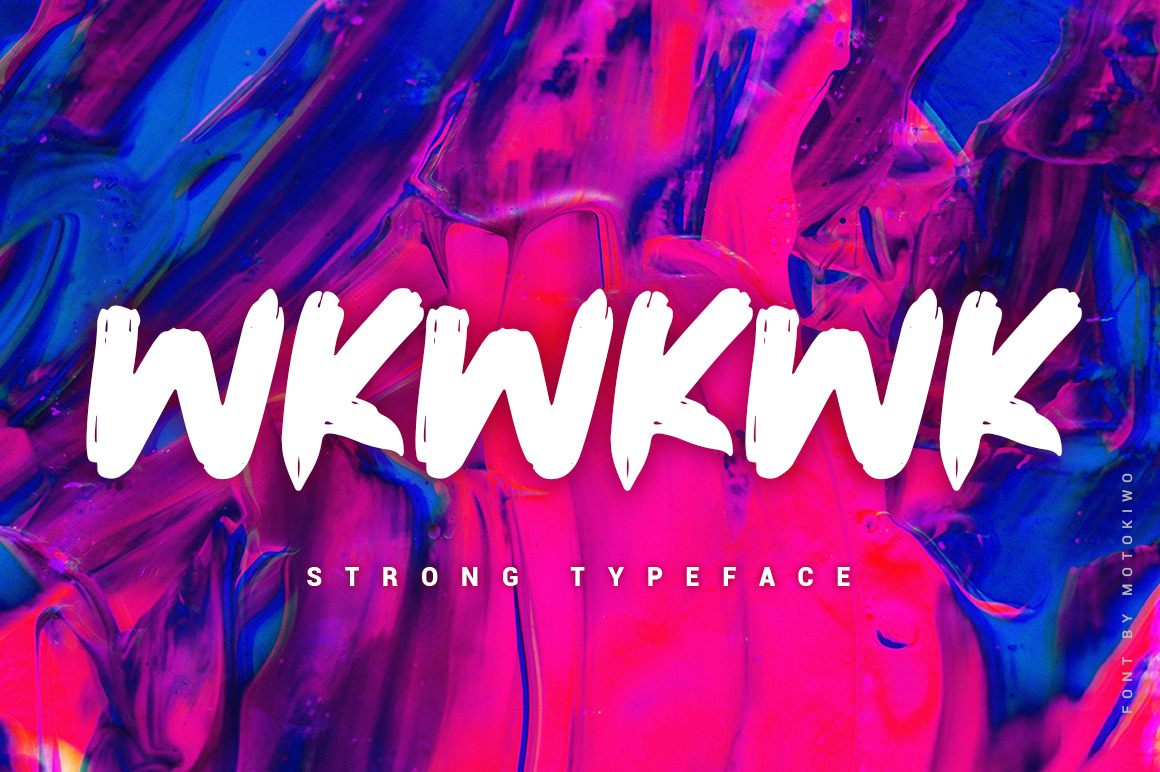
Wkwkwk - Strong Bold Typeface
Wkwkwk - a strong and bold typeface with inky brush style. This font is great for headline, specially for adventure or travel projects. It's all caps with multilingual support and textured brush strokes will catch every eyes into your projects.